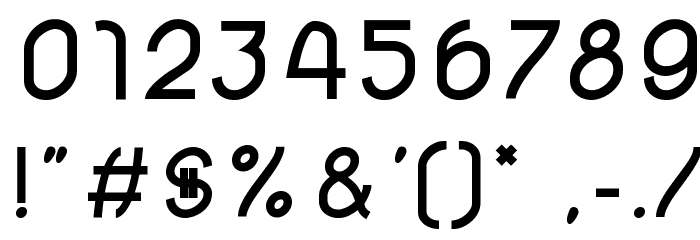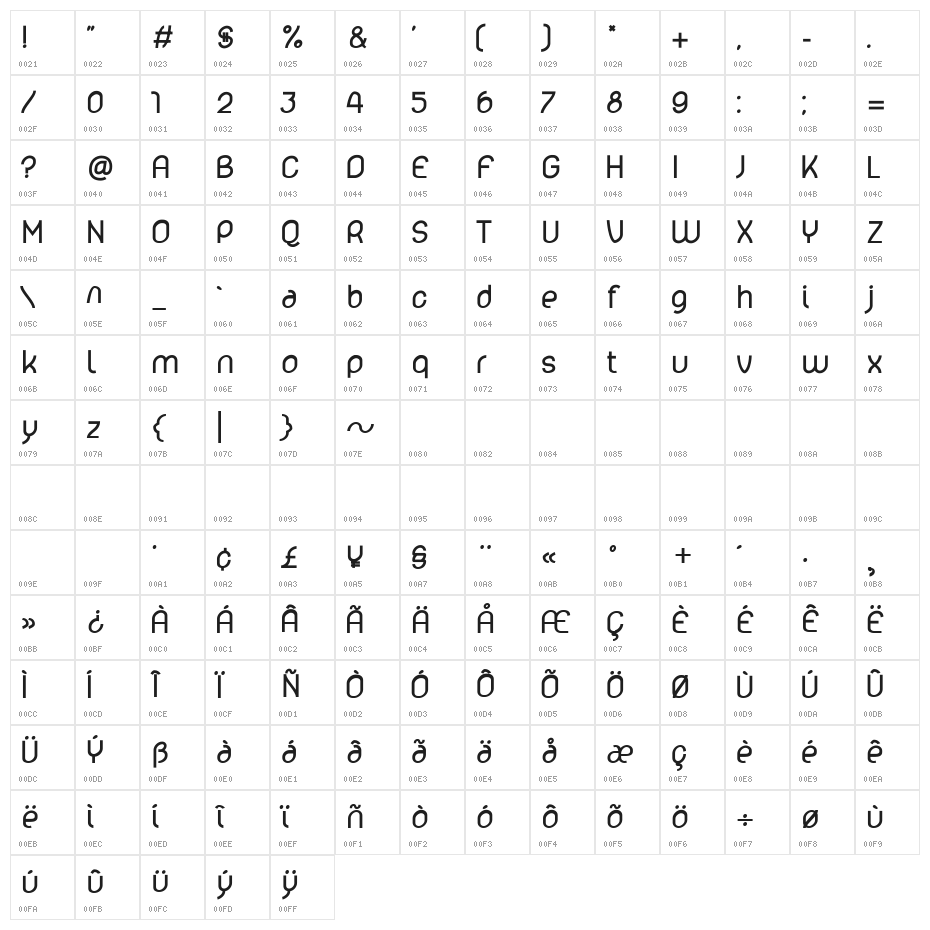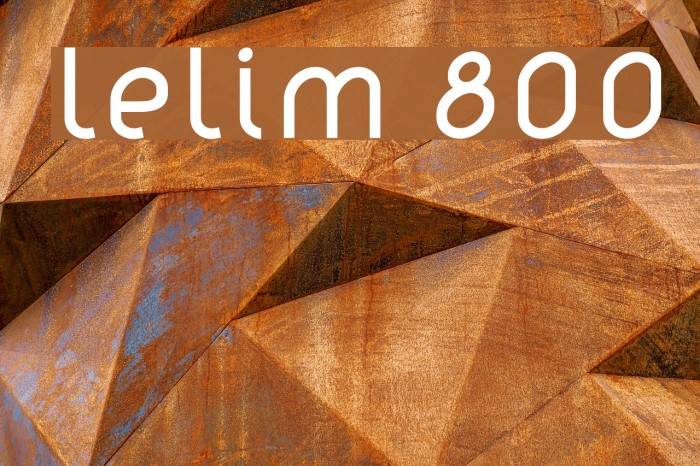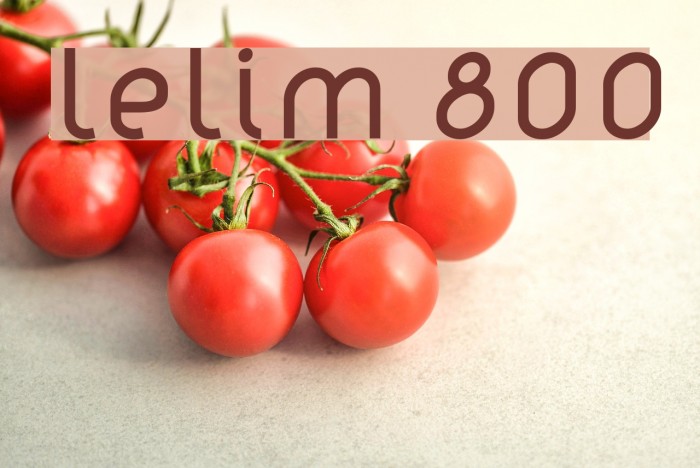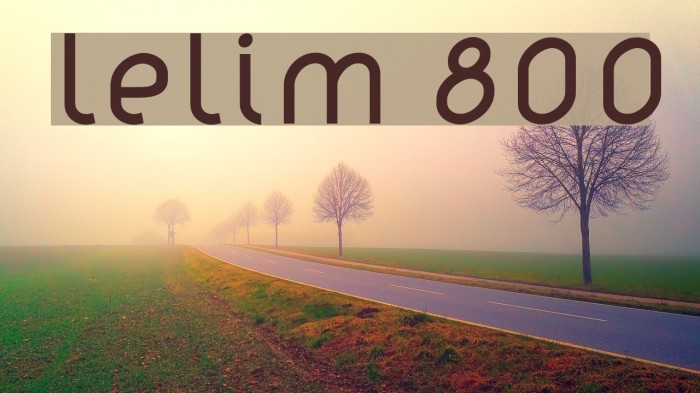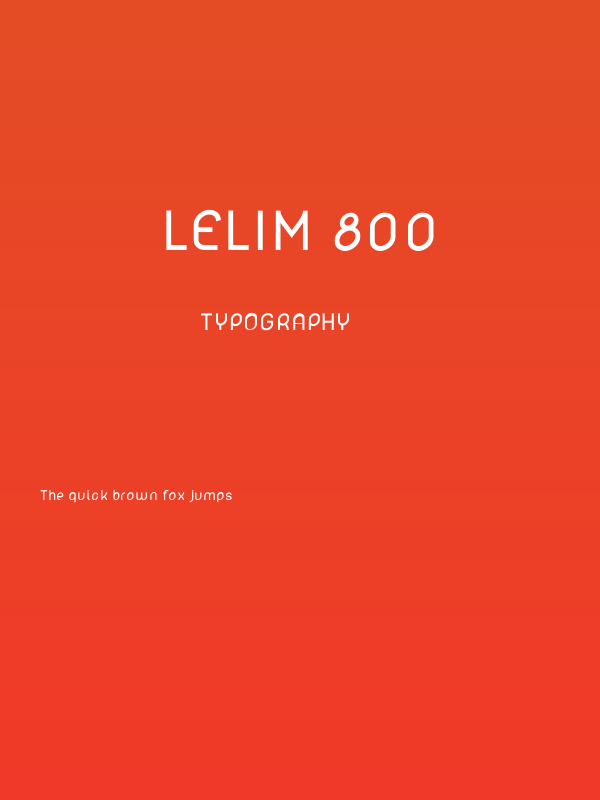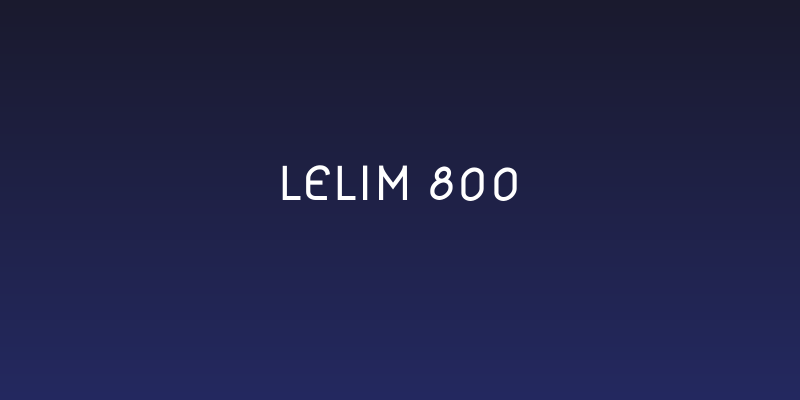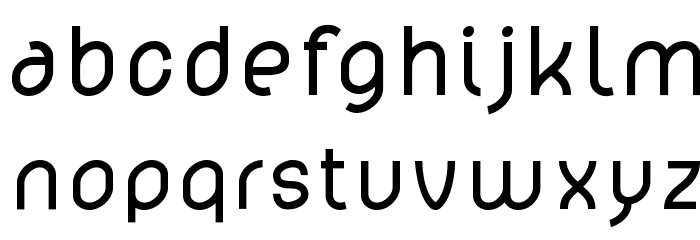
lelim 800 Font
lelim 800 Description
This font exhibits a clean and modern aesthetic with a geometric sans-serif style. The characters are uniform in width, providing a balanced and harmonious appearance. The uppercase letters are bold and assertive, while the lowercase letters maintain a consistent height, contributing to readability. The numerals are distinct and clear, making them suitable for various applications. The special characters are well-defined, ensuring versatility in design projects. Overall, this font combines simplicity with functionality, making it ideal for contemporary design needs.
| Proposed Projects | Ideal for branding, web design, advertising, and editorial layouts due to its clarity and modern appeal. |